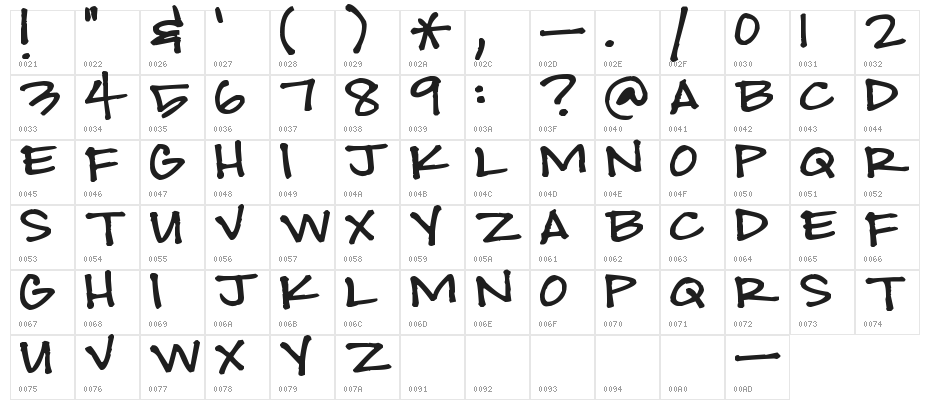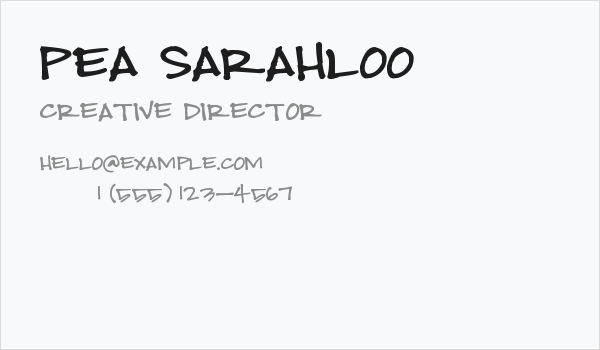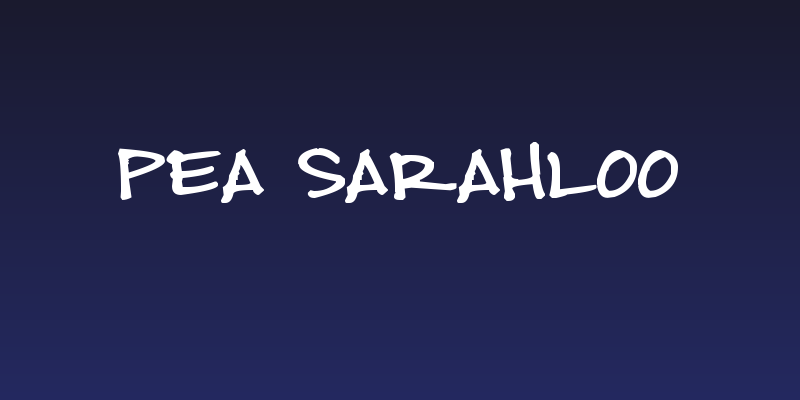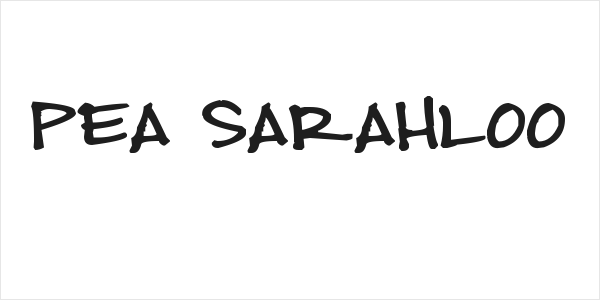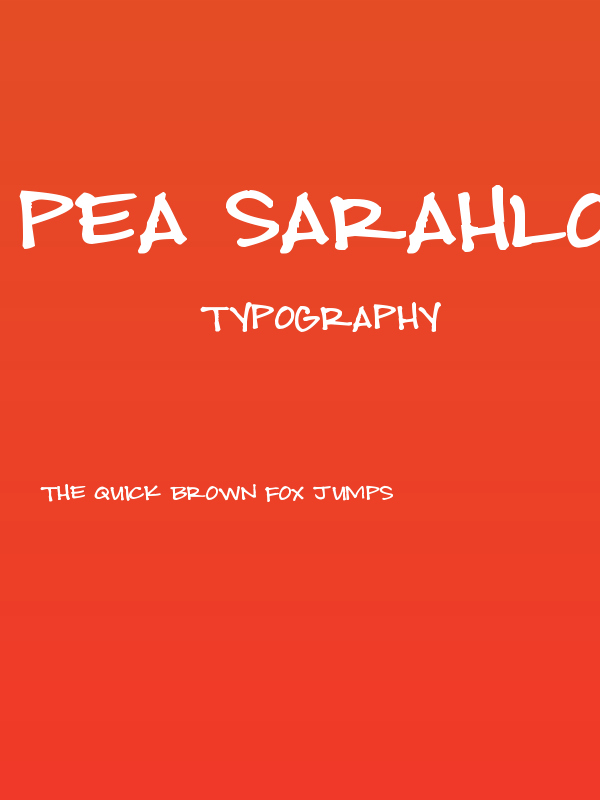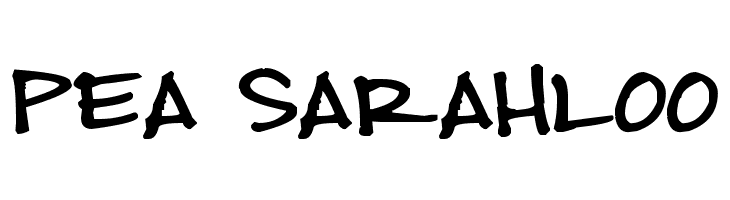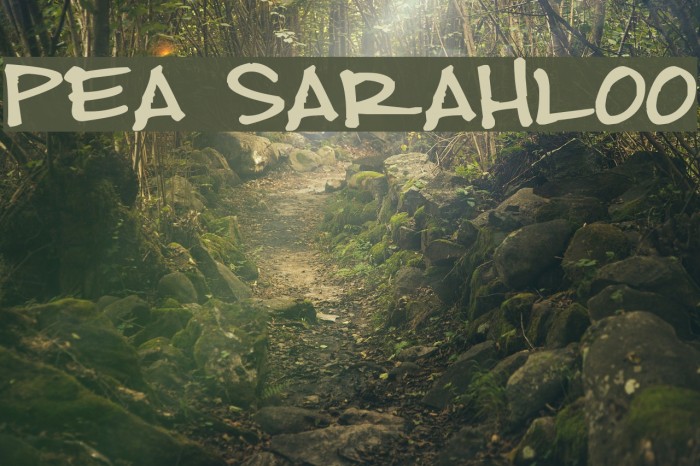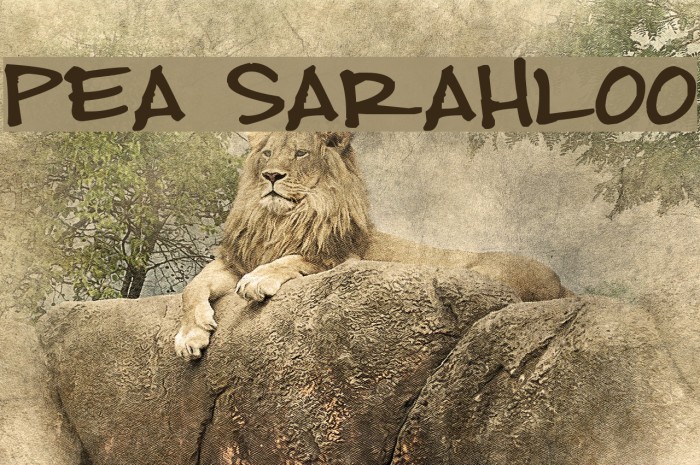
Pea Sarahloo Font
Pea Sarahloo Description
This font features a playful and casual handwritten style, characterized by its bold and slightly irregular strokes. The letters have a dynamic and energetic feel, with varying stroke widths that add a sense of movement and personality. The uppercase and lowercase letters maintain a consistent style, with rounded edges and a slightly slanted orientation, giving it a relaxed and informal appearance. The numbers and special characters follow the same design principles, ensuring a cohesive look across all elements. This font is ideal for projects that require a personal touch or a friendly, approachable aesthetic.
| Overall Style | Casual |
| Use Case | Logos, Headlines, Informal Text |
| Proposed Projects | Ideal for greeting cards, personal branding, social media graphics, and informal invitations. |